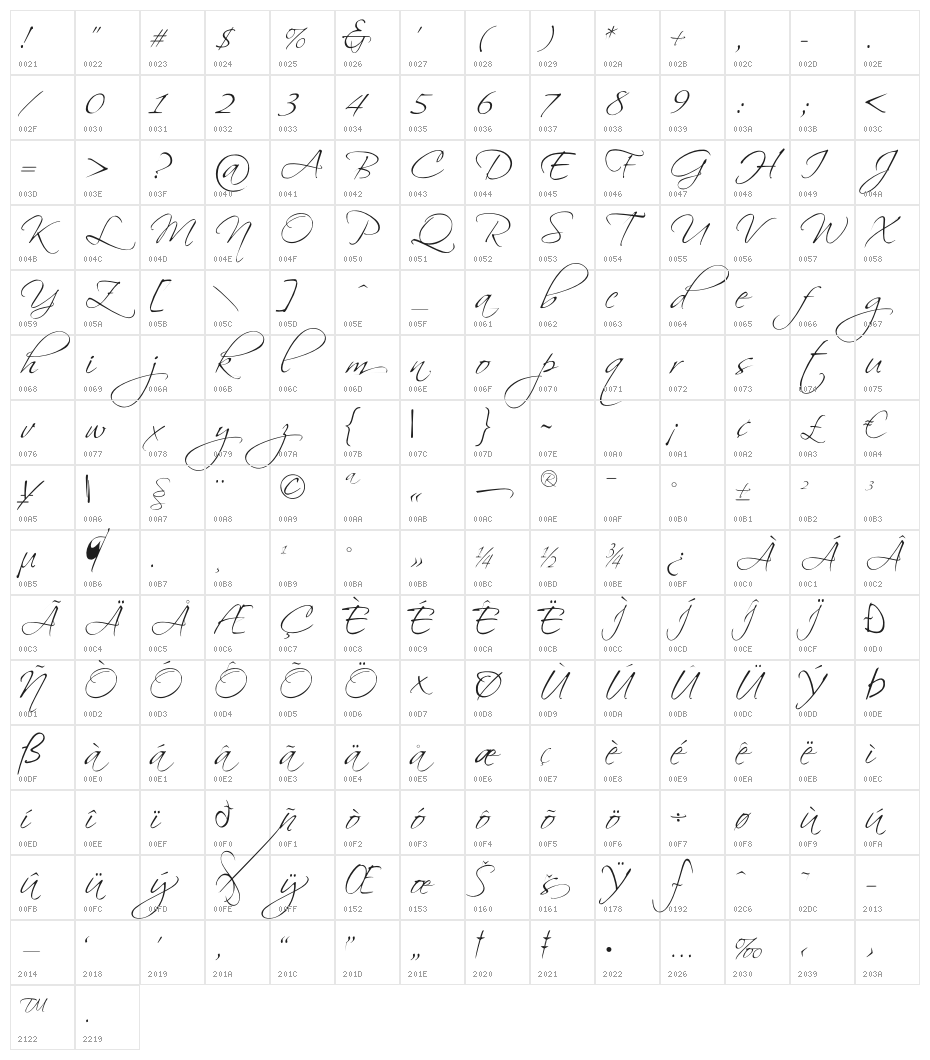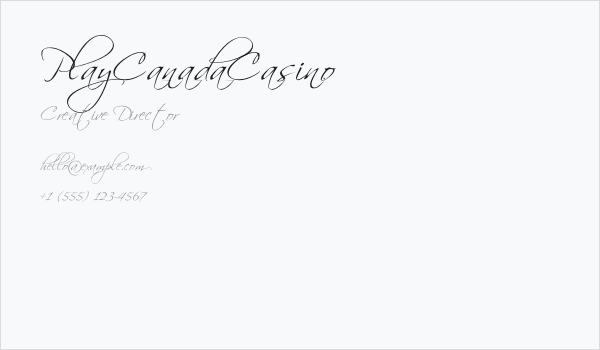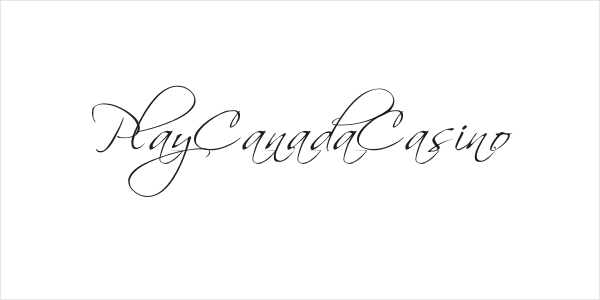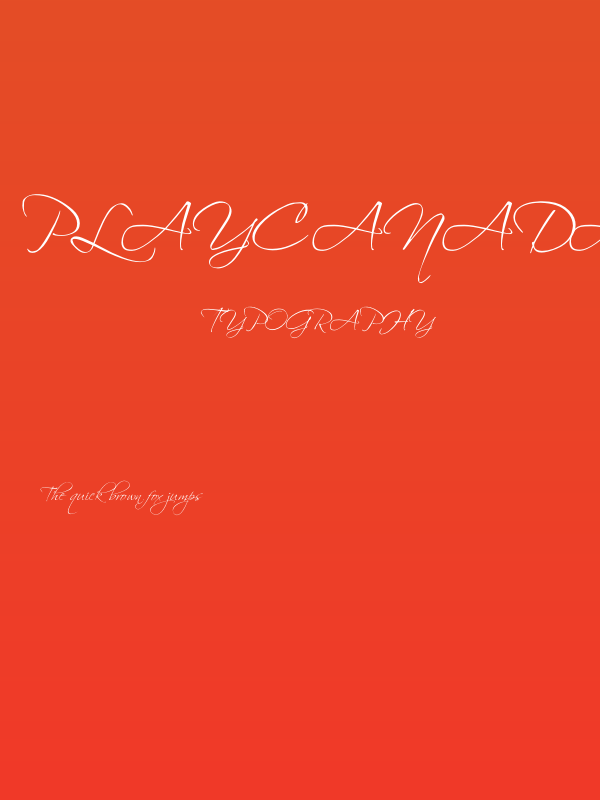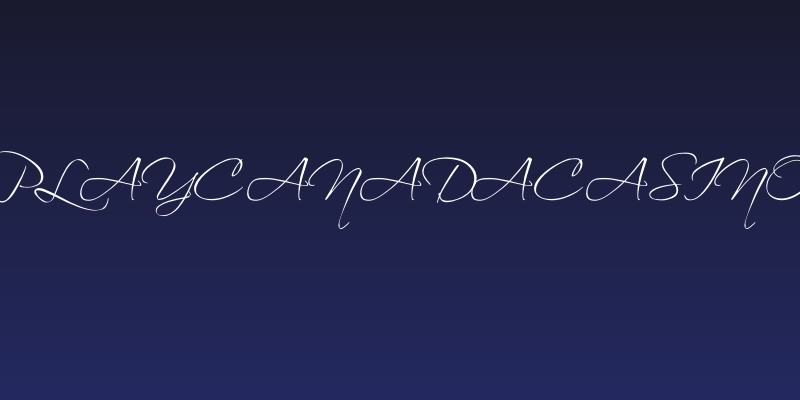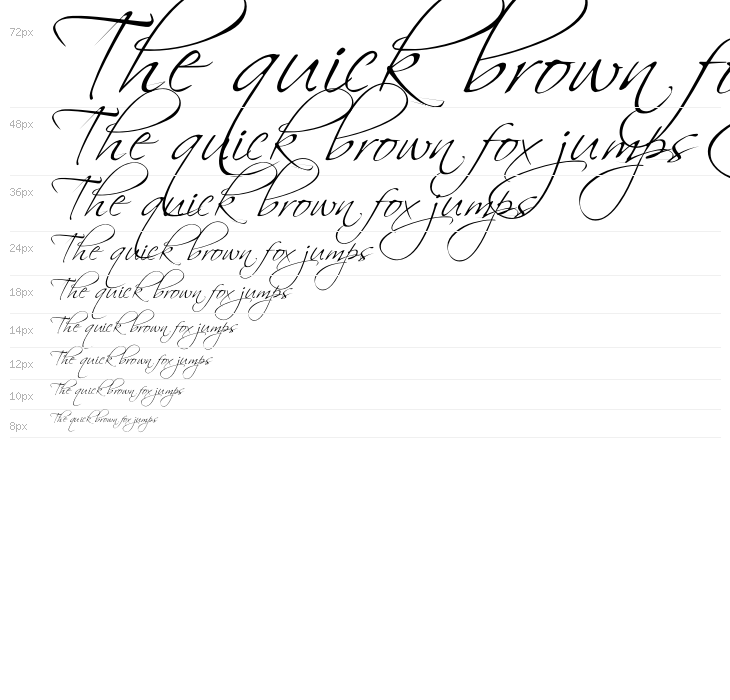
PlayCanadaCasino Font
PlayCanadaCasino Description
This elegant script font features flowing, interconnected letters with a high degree of flourish and sophistication. The uppercase letters are particularly ornate, with sweeping curves and extended lines that give a sense of movement and grace. The lowercase letters maintain a consistent style, with smooth transitions and a slightly slanted orientation. Numerals are designed with a similar flair, ensuring they complement the overall aesthetic. Special characters are included, each crafted with the same attention to detail, making this font ideal for decorative purposes. The thin strokes and high contrast between thick and thin lines add to the font's refined appearance, making it suitable for formal and artistic applications.
| Proposed Projects | Ideal for wedding invitations, luxury branding, high-end product packaging, and artistic projects requiring a touch of elegance. |